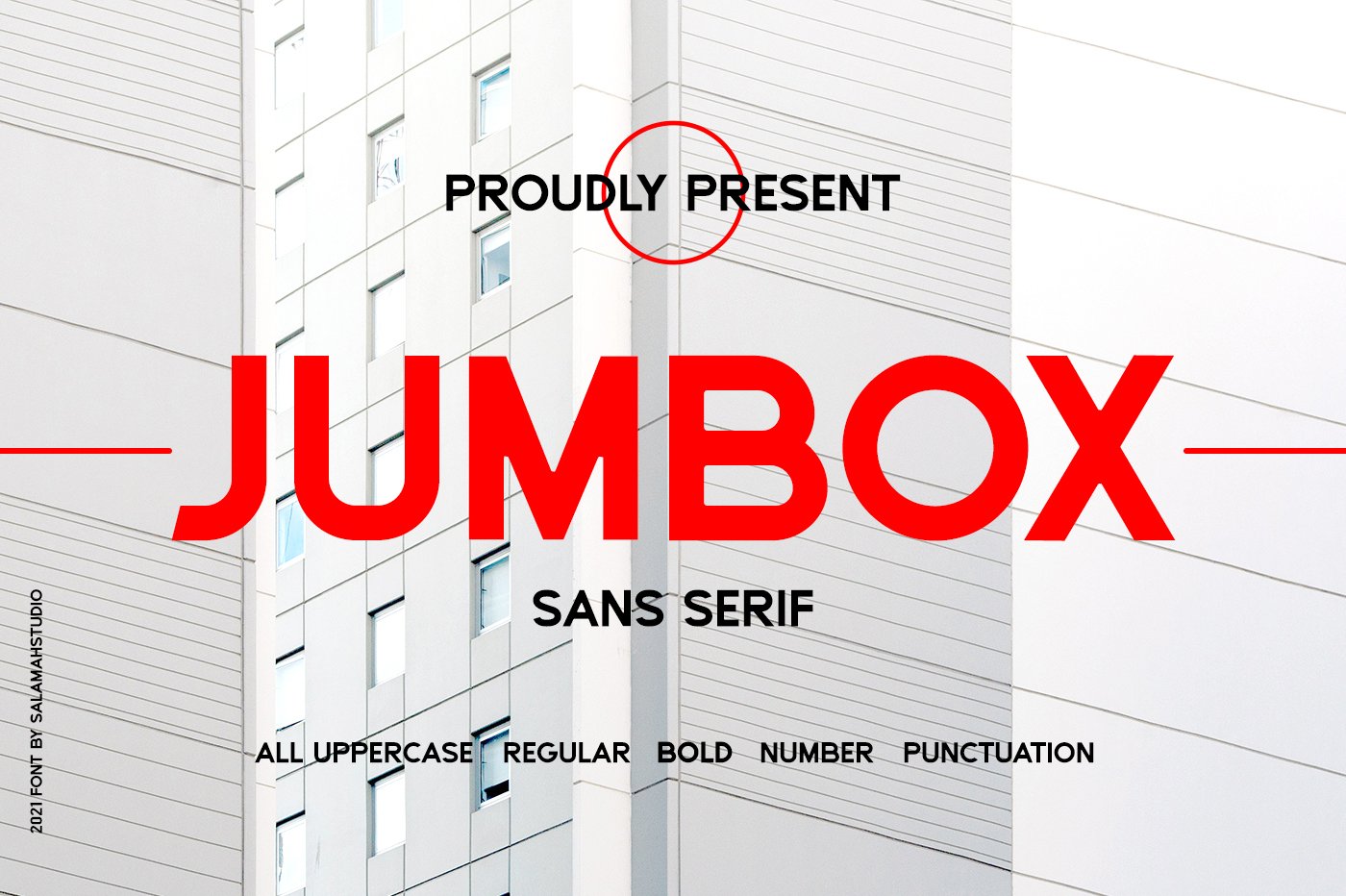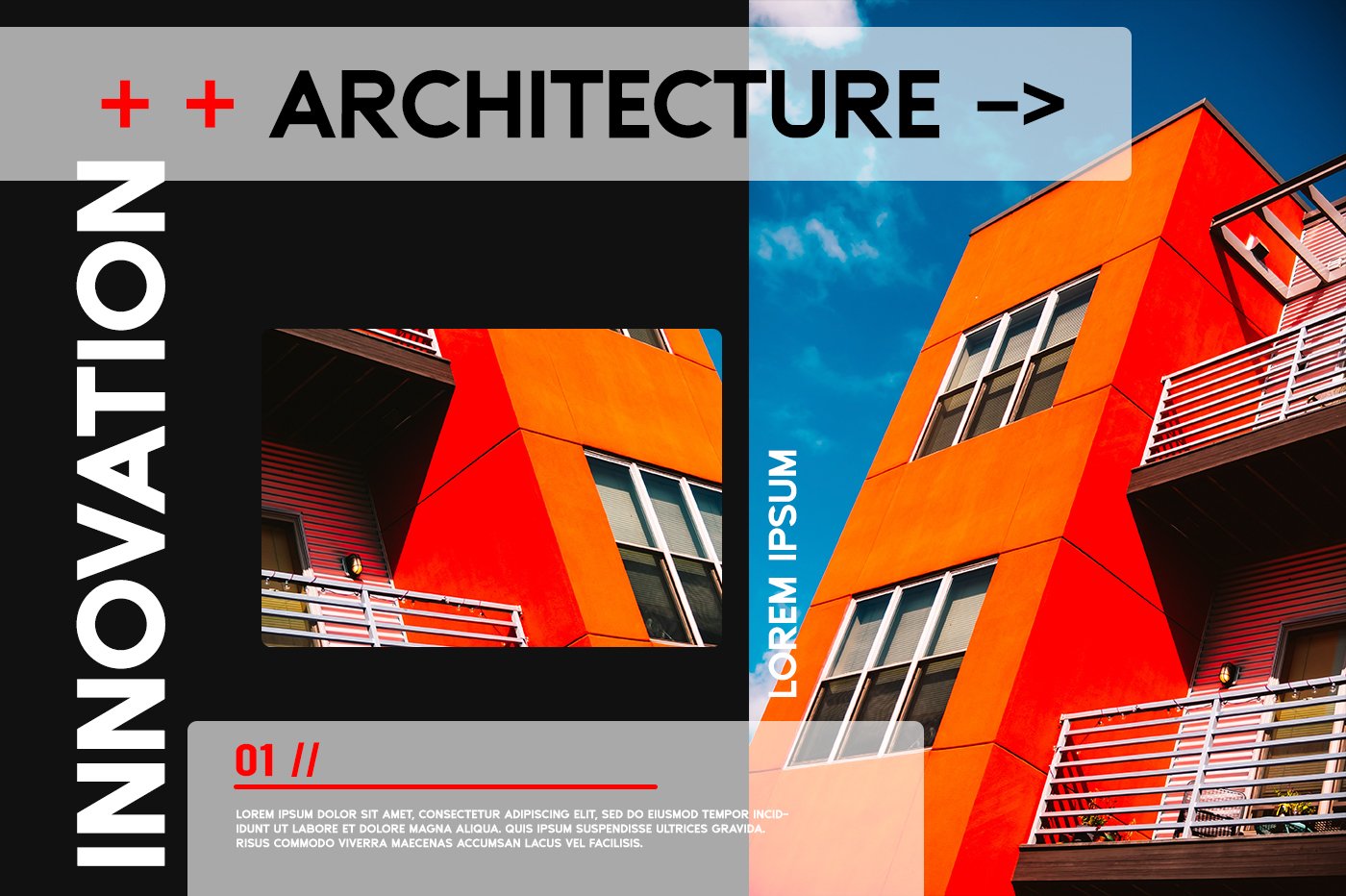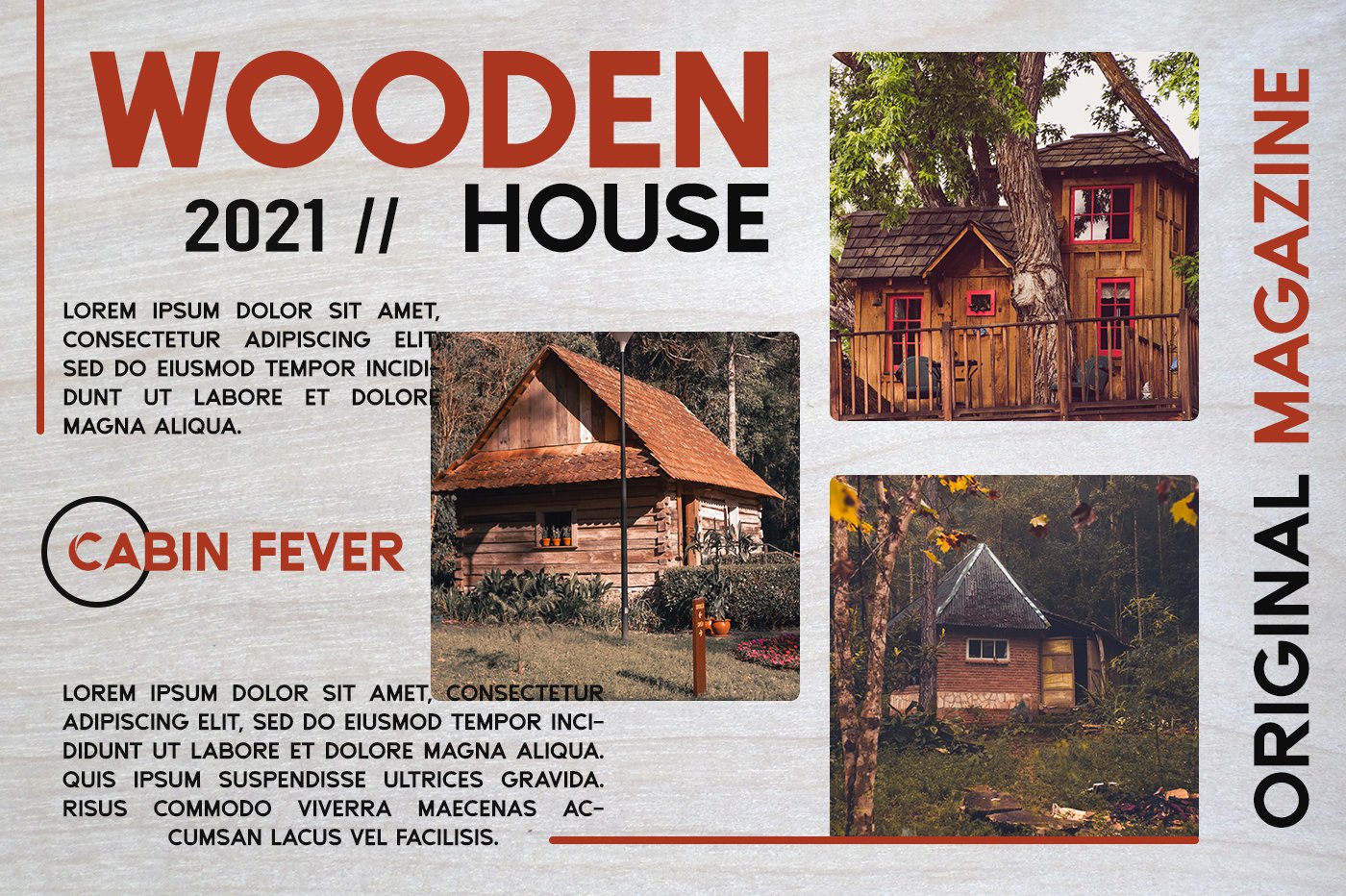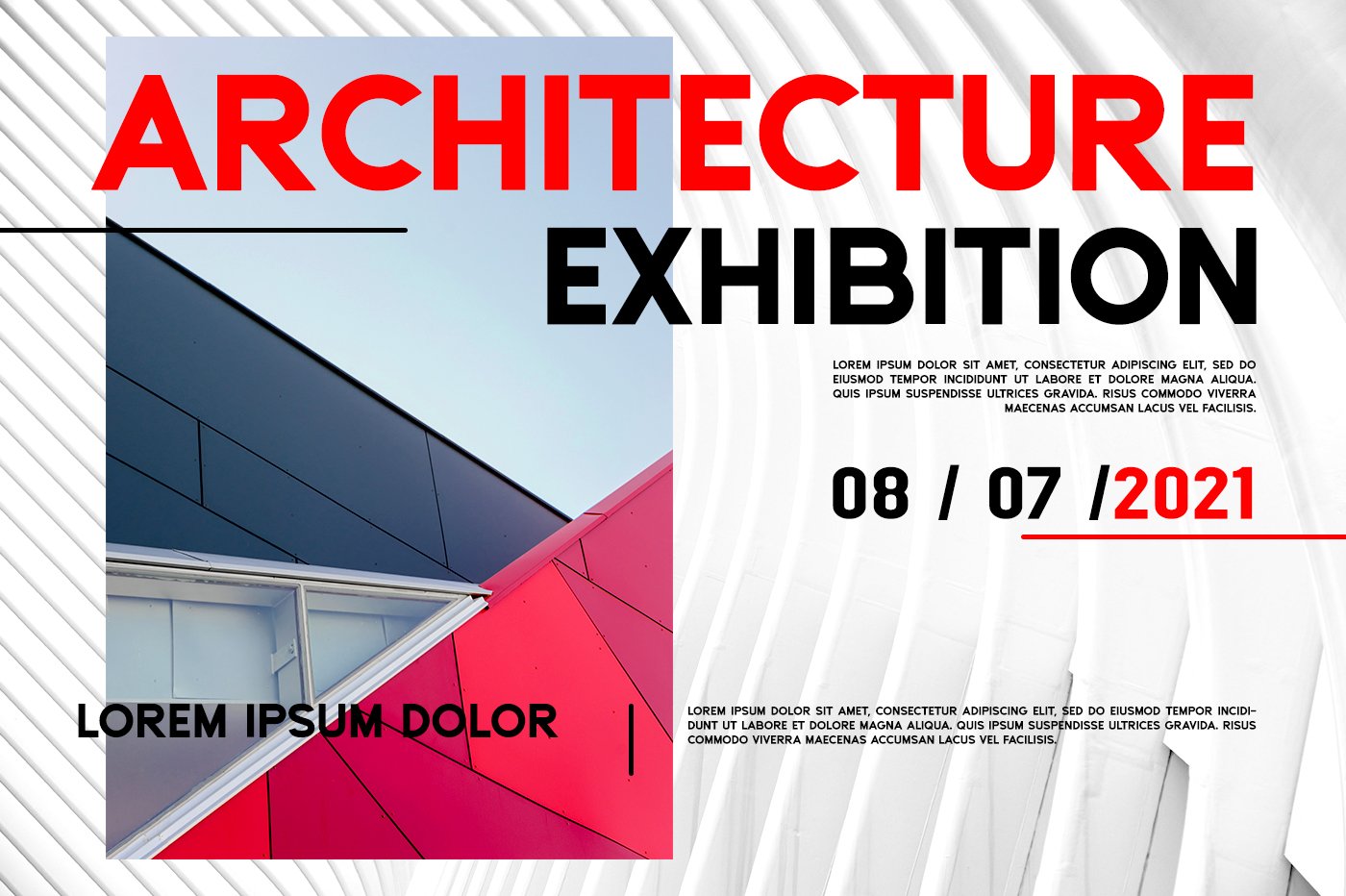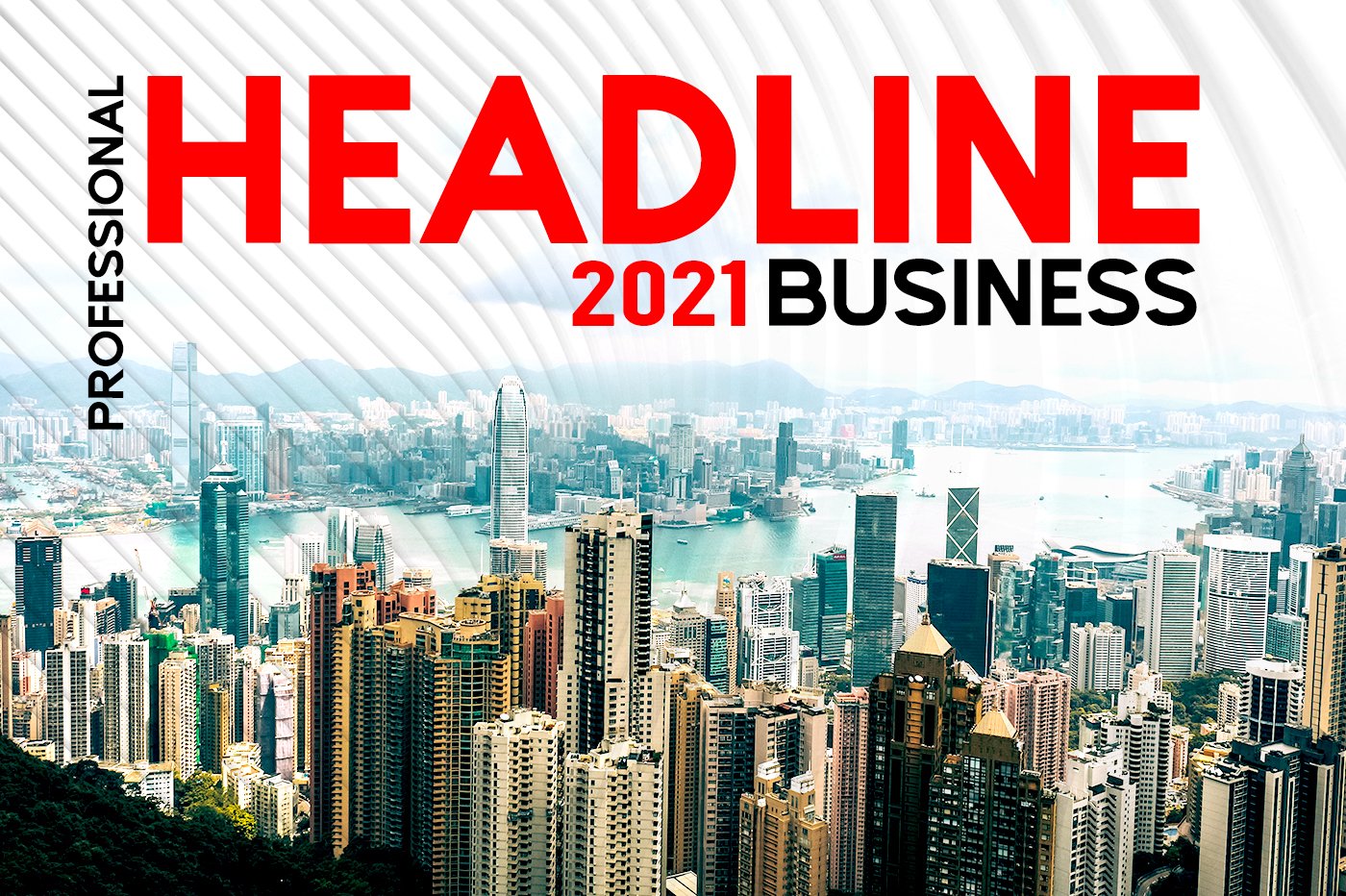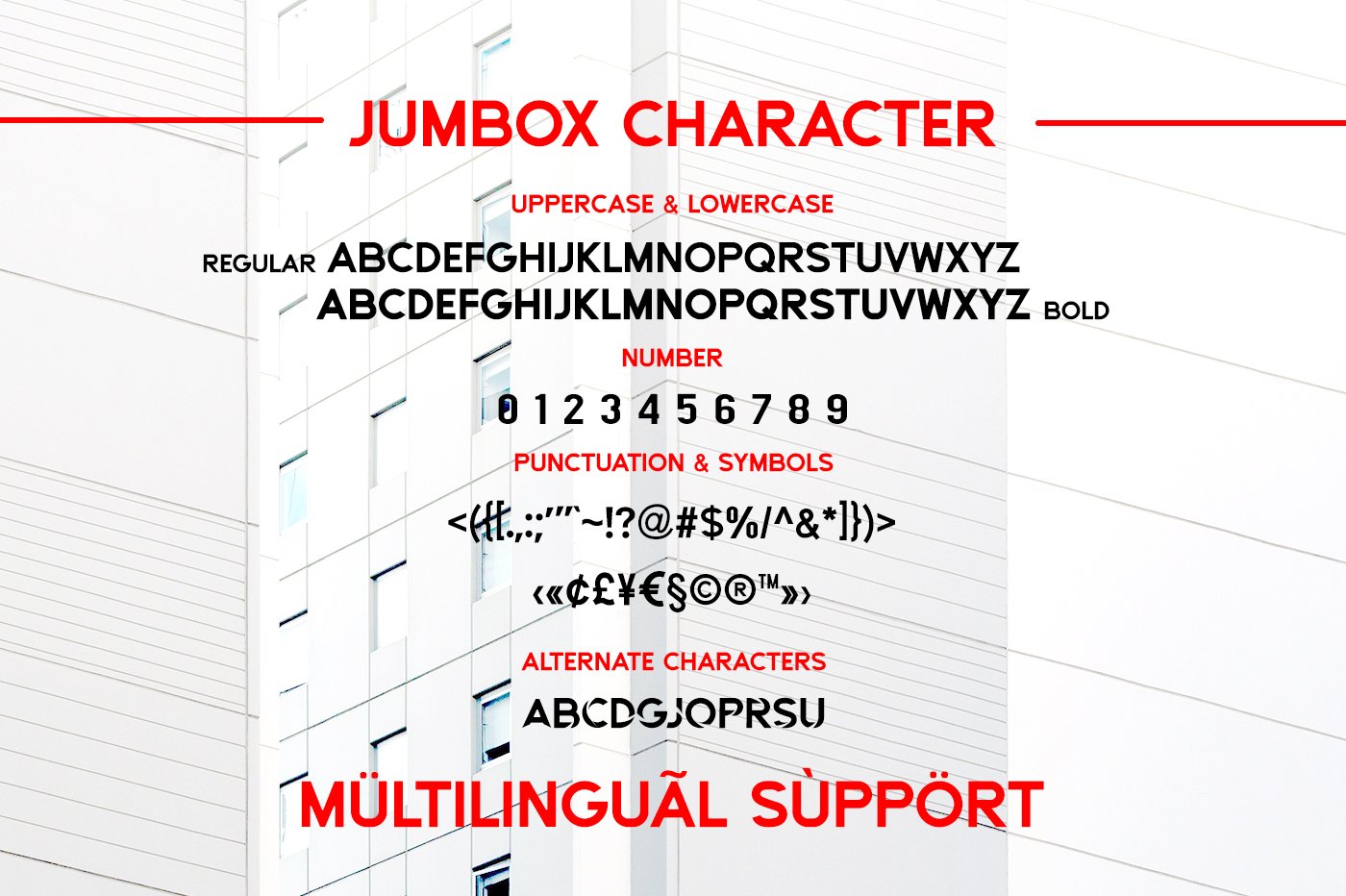
- Jumbox Bold Sans
With bold style, this font is perfect for logos, posters, product packaging, product designs, branding projects, posters, flyers, social media posts, advertisements, labels, photography, and more.